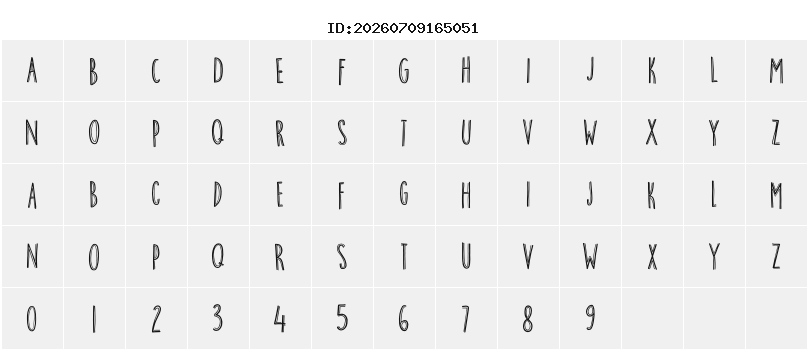
DK Breakfast Burrito Preview
• Font Name: DK Breakfast Burrito
• Designer: David Kerkhoff
About DK Breakfast Burrito.otf
DK Breakfast Burrito.otf is a modern, elegant sans-serif font designed for ultimate readability and visual harmony. Perfect for branding, headlines, web design, and print materials.